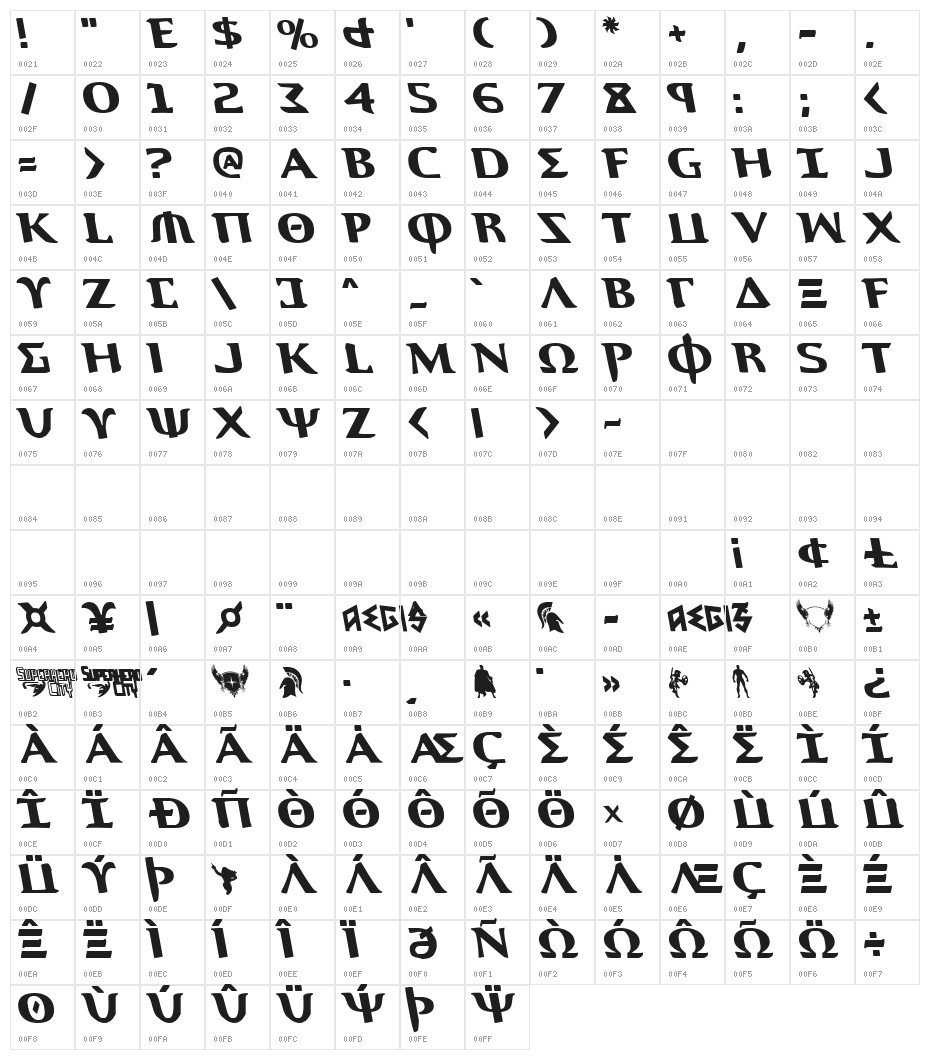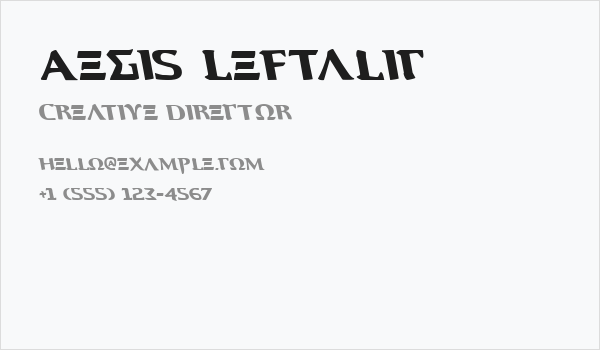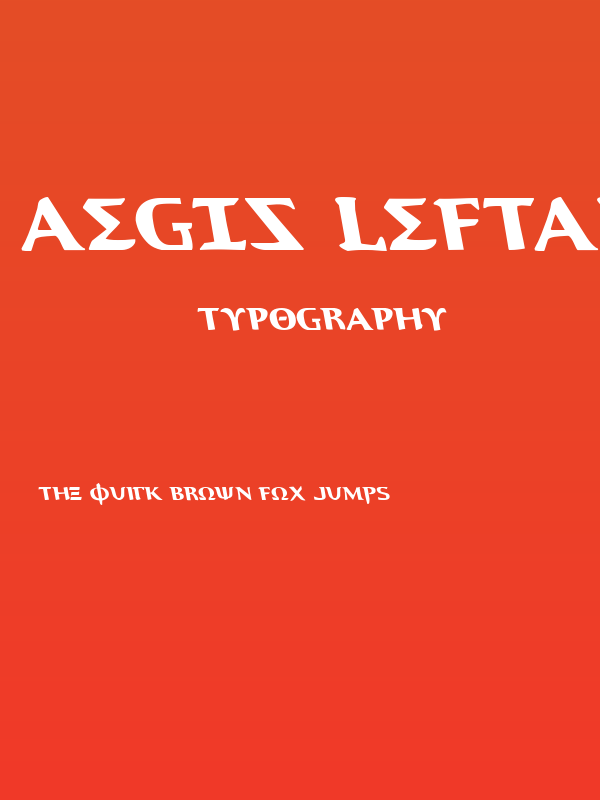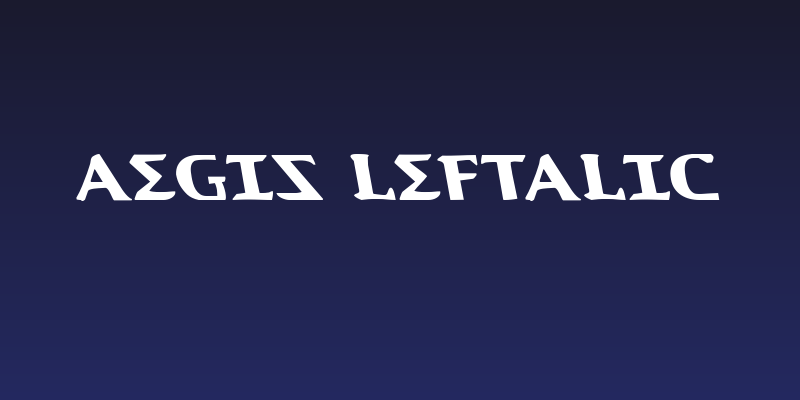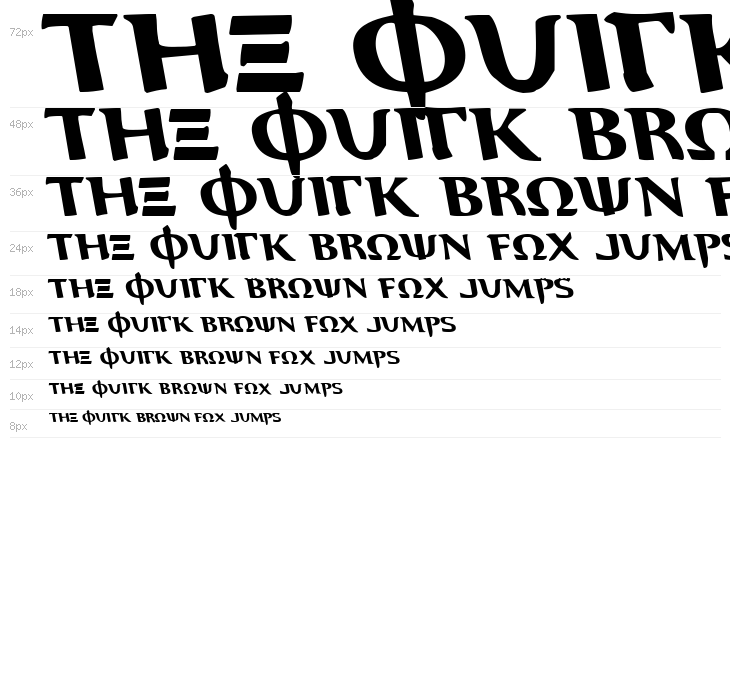
Aegis Leftalic Font
Aegis Leftalic Description
This font features a bold and dynamic style with a distinct leftward slant, giving it a sense of motion and energy. The characters are crafted with sharp, angular edges and a unique geometric flair, reminiscent of ancient scripts with a modern twist. The uppercase and lowercase letters maintain a consistent style, with some characters incorporating unusual shapes that add to the font's distinctive appearance. Numbers and special characters follow the same design principles, ensuring a cohesive look across all elements. The font's boldness and unique style make it stand out, suitable for projects that require a strong visual impact.
| Proposed Projects | Ideal for branding, posters, video game titles, and any project needing a bold, dynamic typeface. |